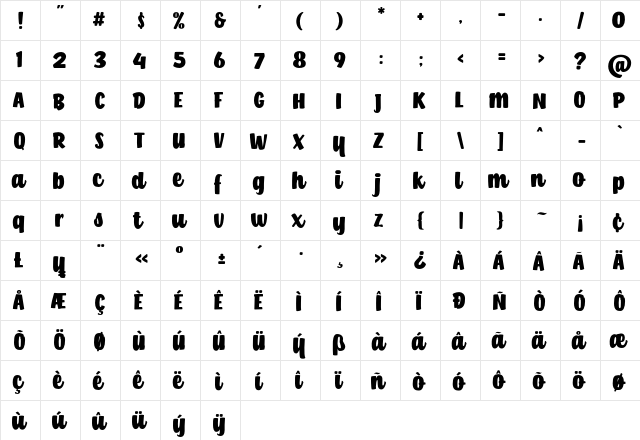
Hamish Regular
| Foundry | Hermansyah Get Studio |
| Designer | Hermansyah Get Studio |
Design Context for Hamish Typeface
Hamish is a composed and adaptable typeface that performs quietly and consistently across a wide range of design contexts.